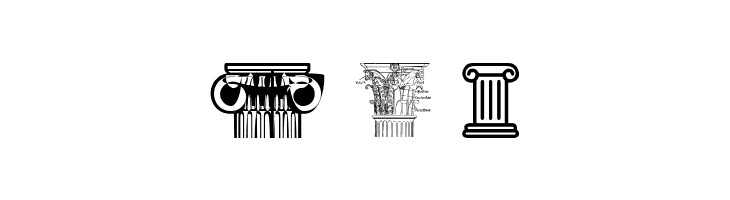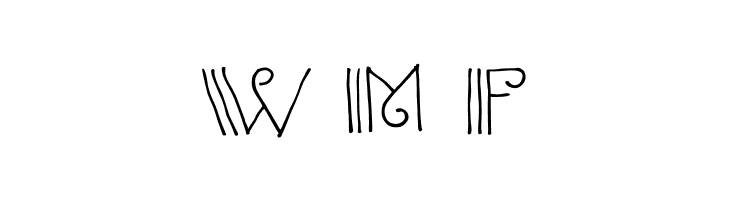
NHL Edge Columbus Font
A bold, athletic font with strong, block-like characters ideal for sports-themed designs.
NHL Columbus Font
A bold, blocky font with angular letterforms and a strong, structured appearance.
Columbus [Plain]:001.000 Font
Font by Sam Wang
A bold serif font with sharp, angular serifs and a modern twist.
Salter Font
Font by David Rakowski
A bold, 3D font with a striped pattern and shadow effect, perfect for striking designs.
Salter Medium Font
A bold, three-dimensional font with a striking shadow effect.
Cló Gaelach [Twomey] Font
A modern font with angular shapes and a Gaelic-inspired style.
Lemiesz Font
Font by David Rakowski
A bold, textured font with a handcrafted, vintage feel.
Tuamach Regular Font
A modern serif font with angular serifs and sharp edges, blending classic and contemporary styles.
Lemiesz Regular Font
Font by David Rakowski
A bold, textured font with a rugged, hand-crafted appearance.
columbian stroke Font
A bold, decorative font with intricate and artistic design elements.
Columbine Font
Font by imagex
A bold, decorative font with a unique dripping effect, perfect for impactful designs.
Columbia Shuttle Memorial Font Font
A commemorative emblem font with shuttle and star motifs.
Salter Regular Font
A bold, three-dimensional font with a striped pattern and shadow effect.
Columba Font
A decorative font inspired by medieval and Celtic art with intricate, ornamental details.
PR-Columban demo Font
Font by Peter Rempel - www.prfonts.com
A classic, calligraphic font with sharp serifs and elegant curves.
Columns Font
Ornate, architectural column illustrations with classical detailing.
Victorias Regular Font
Font by David Rakowski